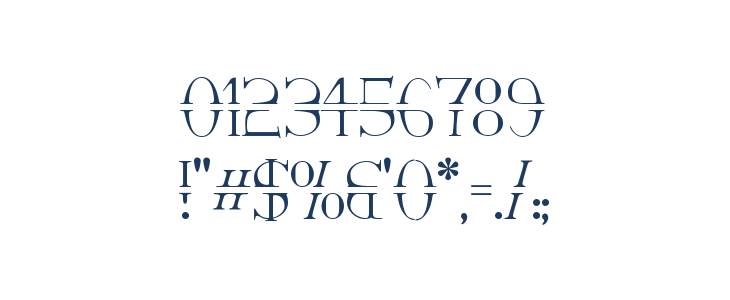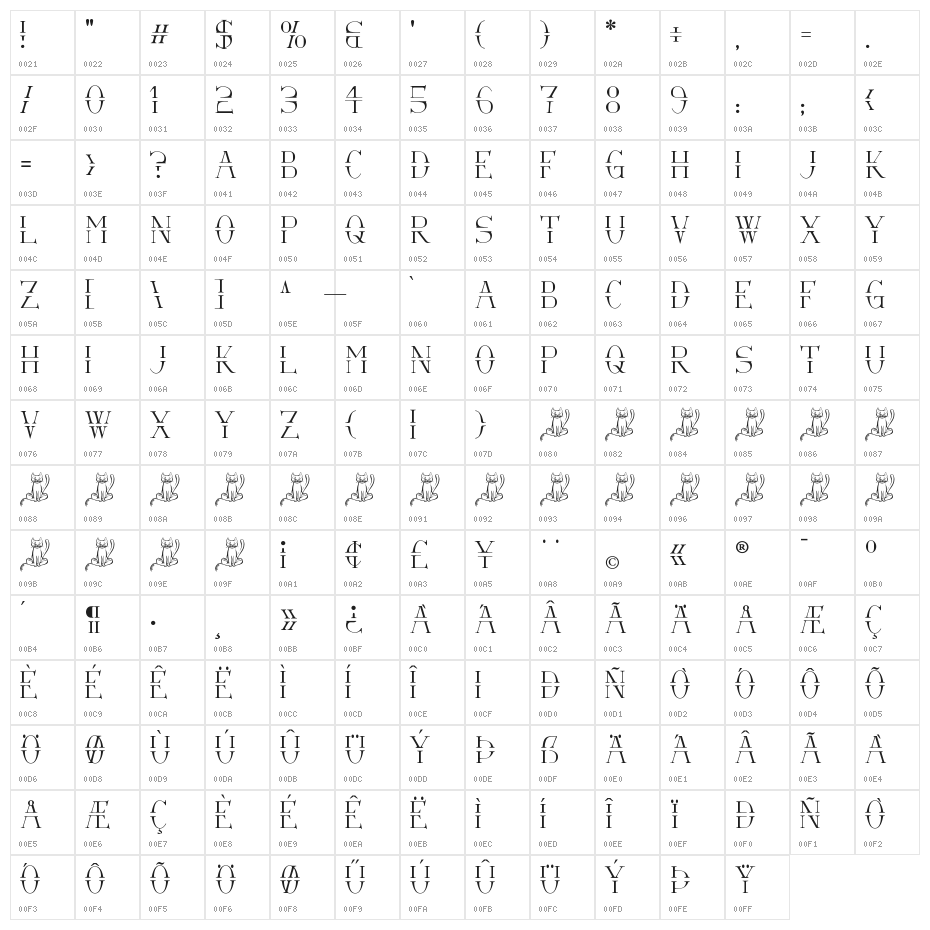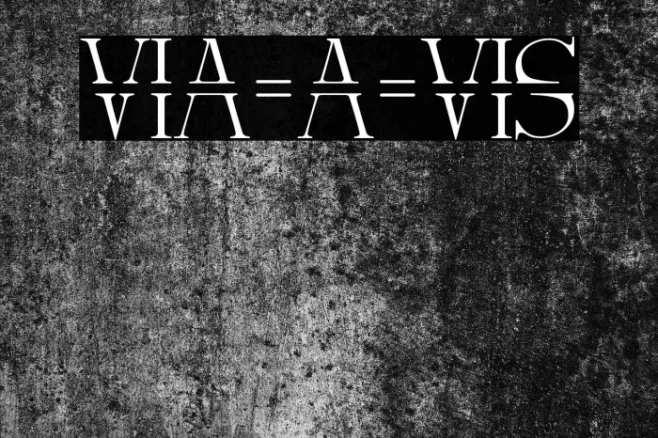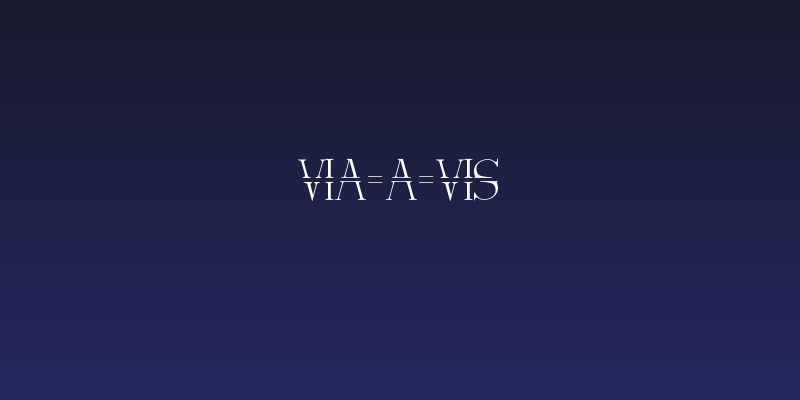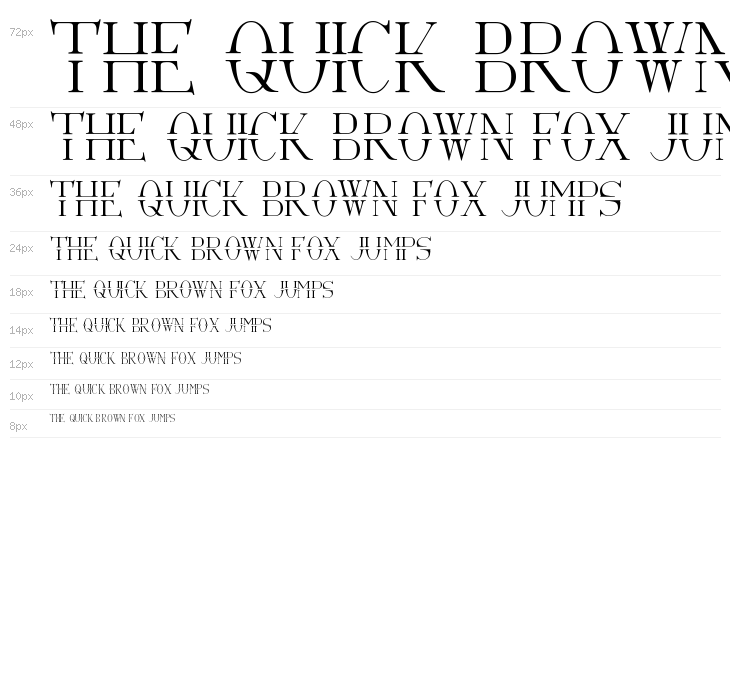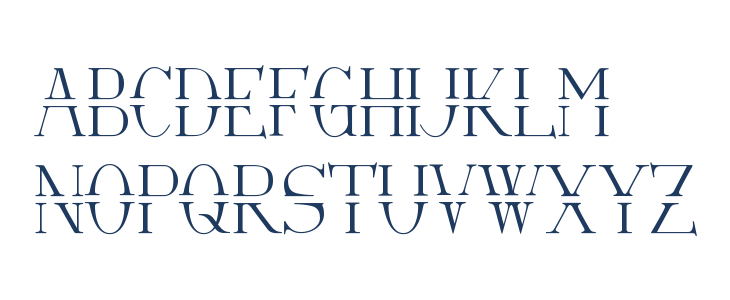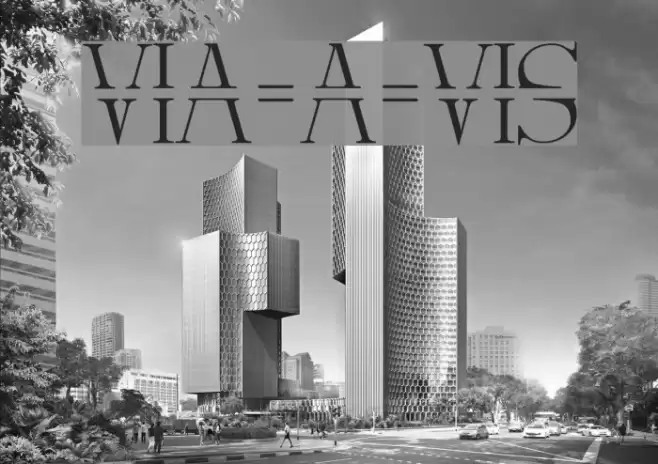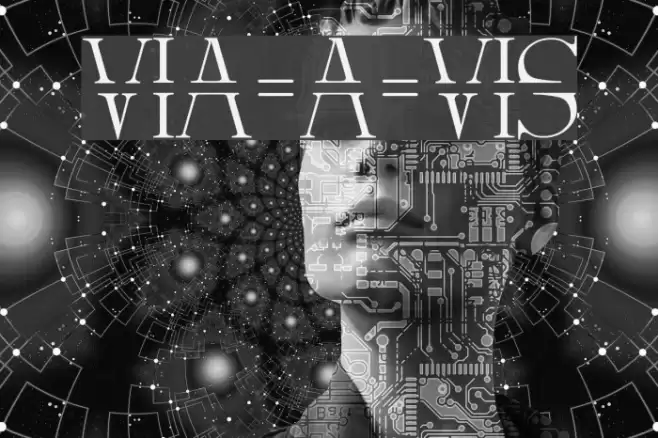
Via-A-Vis Font
This font features a unique and artistic design, characterized by its split and mirrored appearance. Each character is divided horizontally, creating a mirrored effect that adds a sense of symmetry and intrigue. The uppercase letters are bold and striking, with a modern twist on traditional serif elements. The lowercase letters maintain the same split design, offering a cohesive look across the typeface. Numbers and special characters follow the same stylistic approach, ensuring consistency throughout. This font's distinct style makes it ideal for creative and eye-catching designs.
| Proposed Projects | Ideal for branding, posters, album covers, and any project requiring a bold, artistic statement. |